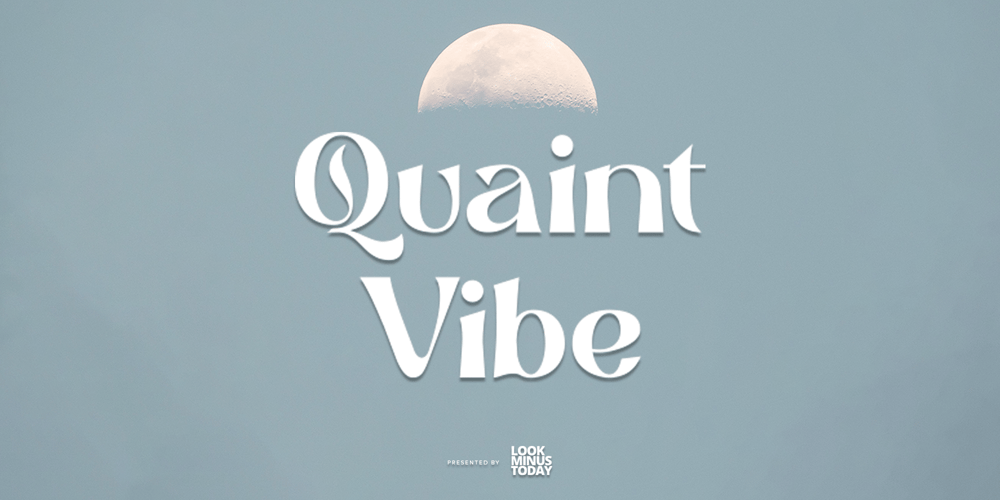
Quaint Vibe Font Family was designed by Arif Rijal and published by Look Minus Today. Quaint Vibe contains 2 styles and family package options. Quaint Vibe is a unique display font created by Look Minus Today. It captures a distinct and charming vibe, blending vintage aesthetics with modern design elements. With its quirky and unconventional letterforms, Quaint Vibe adds a touch of whimsy and character to any project. Whether you’re creating retro-inspired posters, playful logos, or eye-catching headlines, this font will evoke a sense of nostalgia and captivate your audience. With its extensive set of alternate characters and ligatures, Quaint Vibe offers endless creative possibilities, allowing you to craft truly unique and captivating designs. Embrace the charm of Quaint Vibe and infuse your projects with its one-of-a-kind appeal.